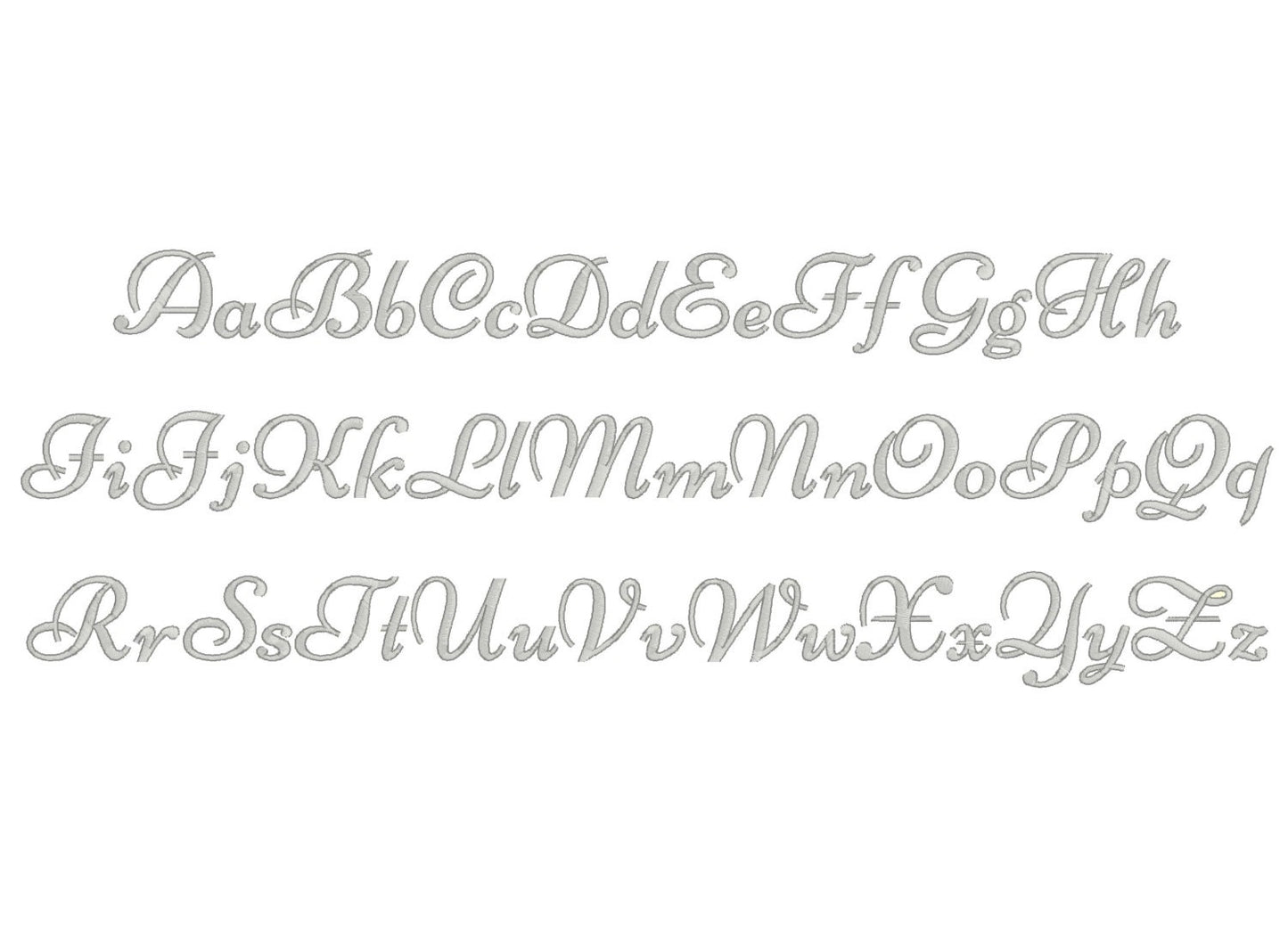
Or click to open the linkA set of arrow designs with hearts and circles, plus a mini font for names. Fun for Valentine's gifts, boho decor and kids' clothes.